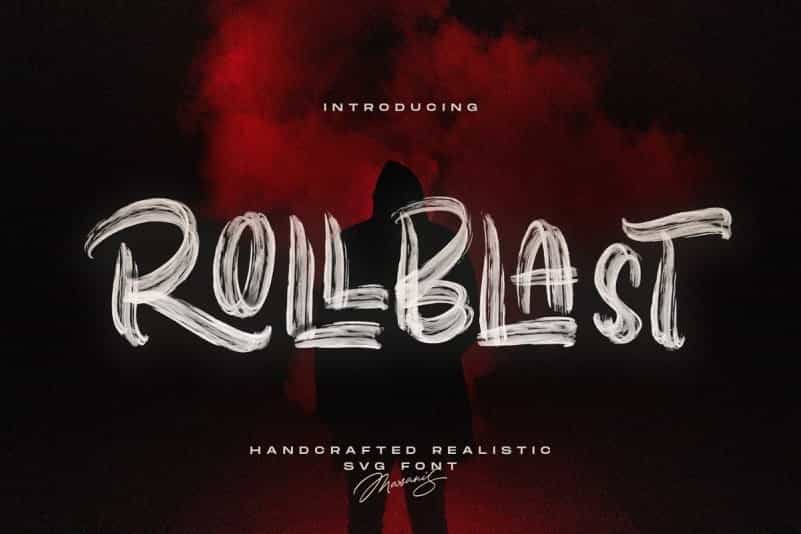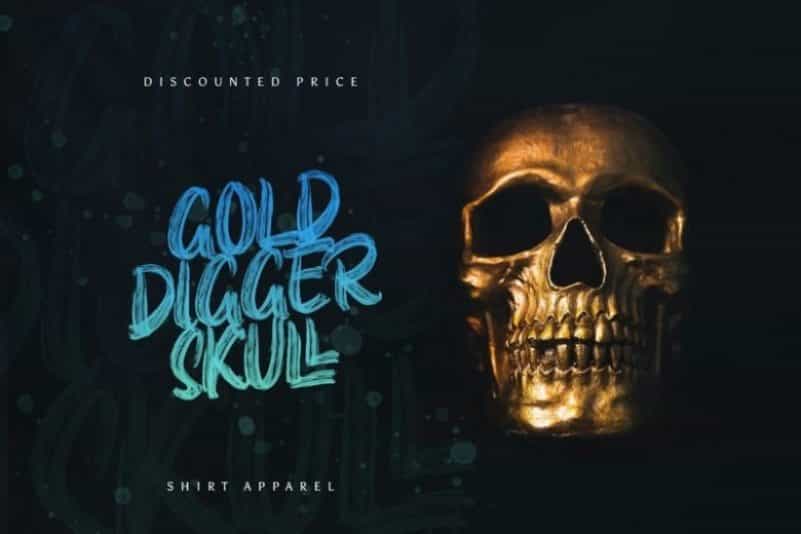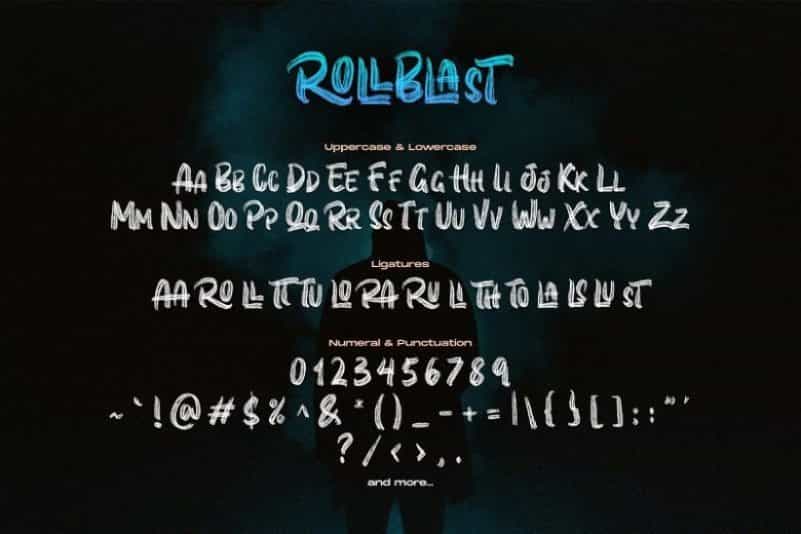
Rollblast, a font which is smudged with a brush pen to give a natural look and, consequently, this font reflects the features of the human hand. It includes a comprehensive set of upper and lowercase letters, as well as a variety of numerals, punctuation and support for multilingual languages.